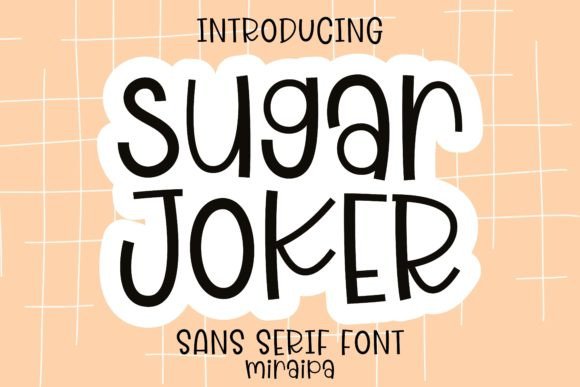
Step into the world of Sugar Joker Font, a delightful sans serif font that exudes sweetness and friendliness. Miraipa, the creative mind behind this font, has crafted a masterpiece that seamlessly blends charm and versatility, making it a perfect choice for a diverse range of design projects. Unleash your imagination and let Sugar Joker Font elevate your designs to new heights.
With its naturally flowing curves and playful personality, Sugar Joker Font effortlessly adds a touch of whimsy and charm to any project. Its unique style, reminiscent of a gentle summer breeze, captivates the senses and leaves a lasting impression. Whether you're creating logos, branding materials, website designs, or social media graphics, Sugar Joker Font is guaranteed to make your creations stand out from the crowd.
Embrace the limitless possibilities that Sugar Joker Font offers. Its versatility shines through its ability to adapt to a wide range of design aesthetics, from minimalist logos to playful illustrations. Let your creativity soar as you explore the endless ways to incorporate this charming font into your projects. Experience the joy of designing with a font that truly brings your vision to life.
Immerse yourself in the world of Sugar Joker Font and unlock a treasure trove of design opportunities. Its user-friendly nature makes it accessible to designers of all skill levels, allowing you to effortlessly create stunning designs that capture the hearts and minds of your audience. Let Sugar Joker Font be your guiding light as you embark on a creative journey that knows no bounds.